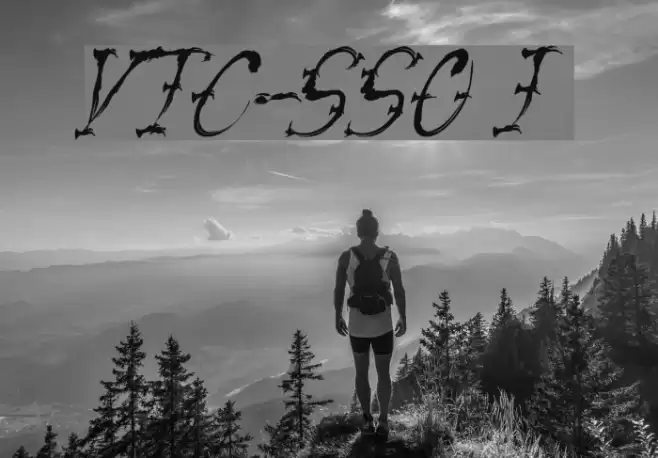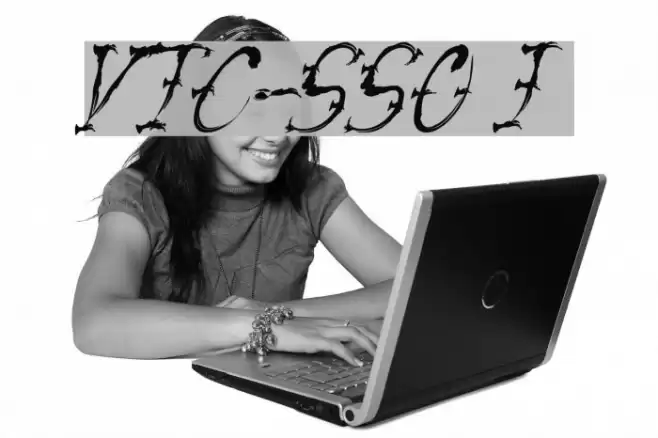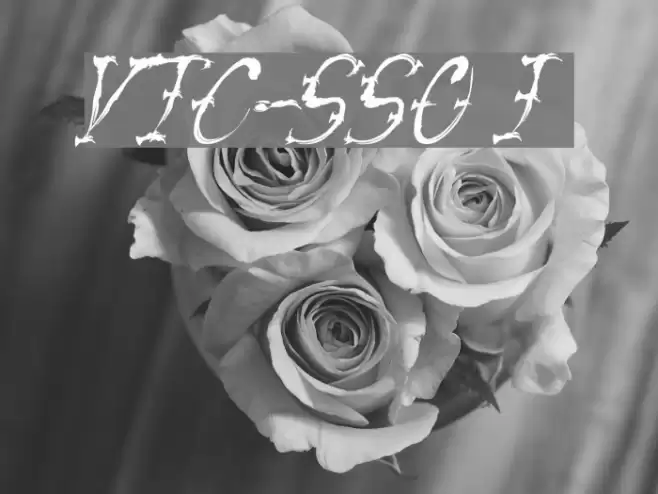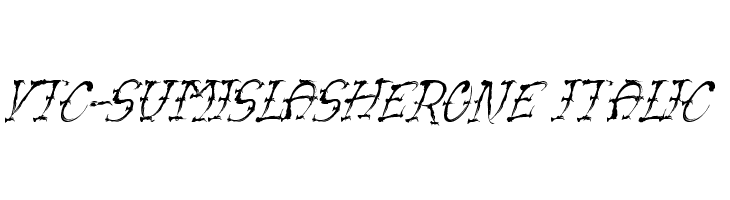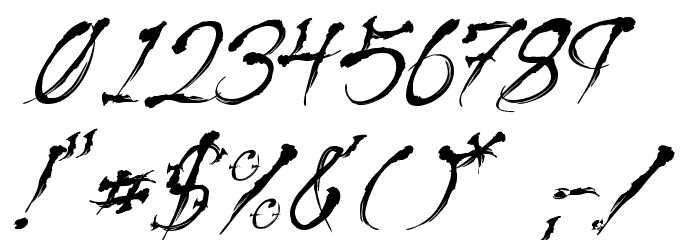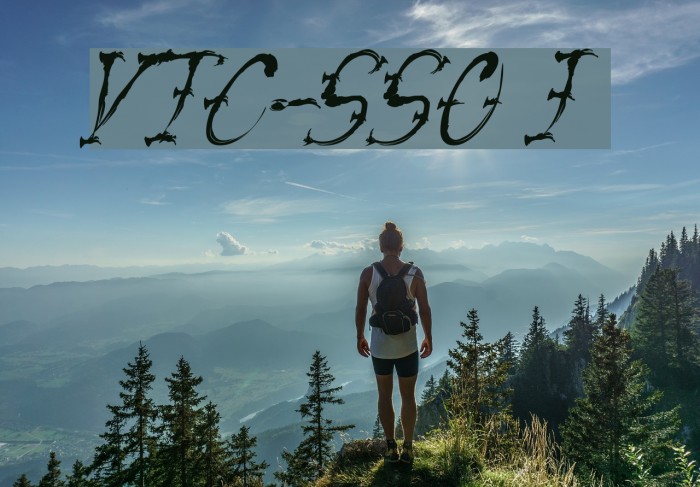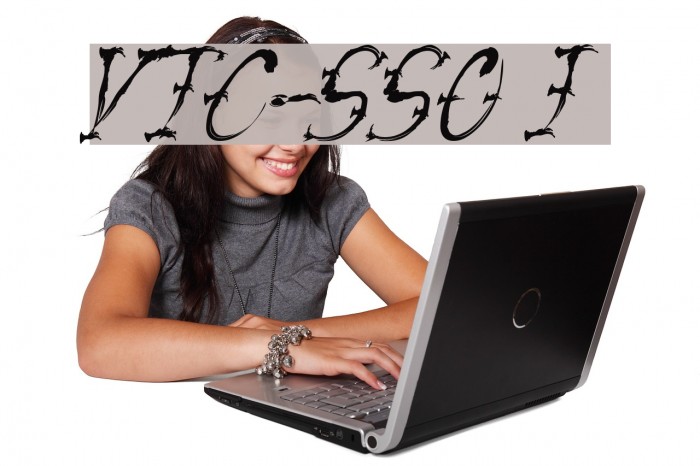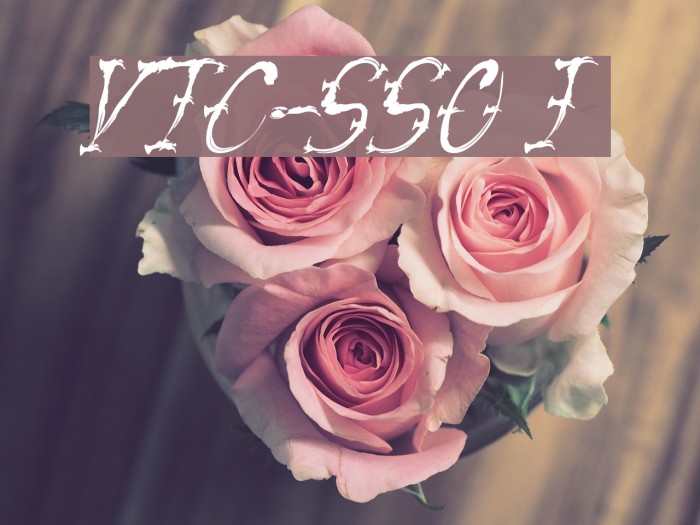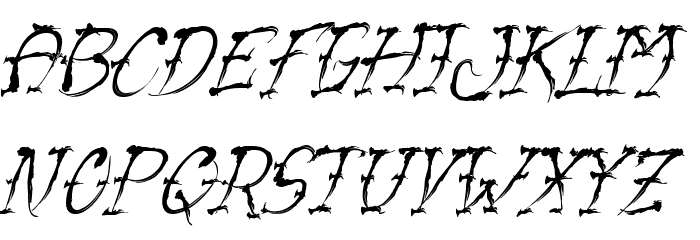
VTC-SumiSlasherOne Italic Font
VTC-SumiSlasherOne Italic Description
This font features a dramatic and edgy design, characterized by sharp, thorn-like extensions and a bold, aggressive style. The letters are italicized, giving them a dynamic and forward-leaning appearance. Each character is uniquely crafted with jagged edges and pointed tips, creating a sense of movement and intensity. The font's high contrast between thick and thin strokes enhances its striking visual impact, making it ideal for attention-grabbing designs. Its decorative and somewhat chaotic style suggests a rebellious or adventurous theme, suitable for projects that aim to stand out with a bold statement.
A bold, italicized font with sharp, thorn-like extensions and high contrast strokes from Uncategorized fonts.